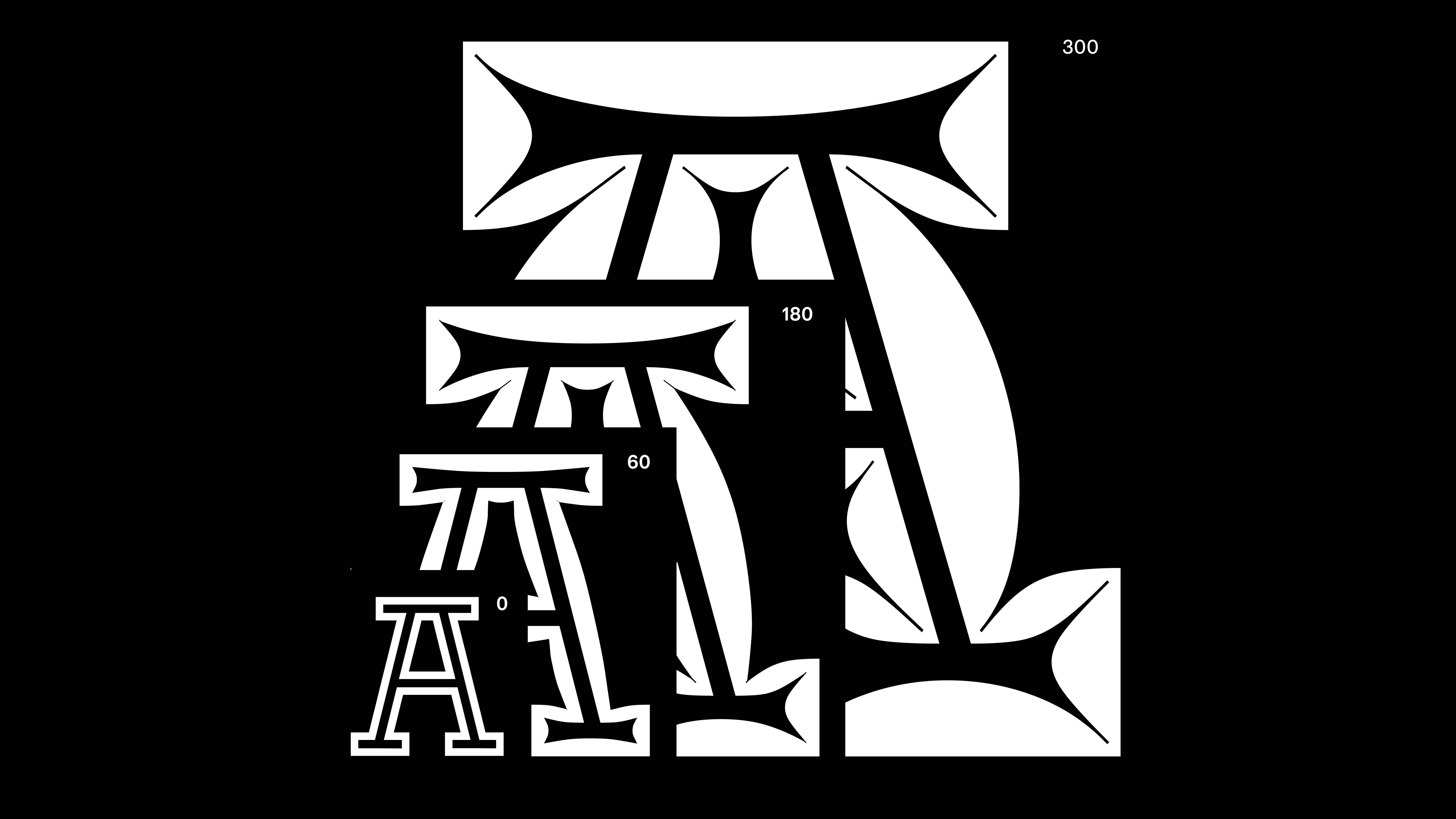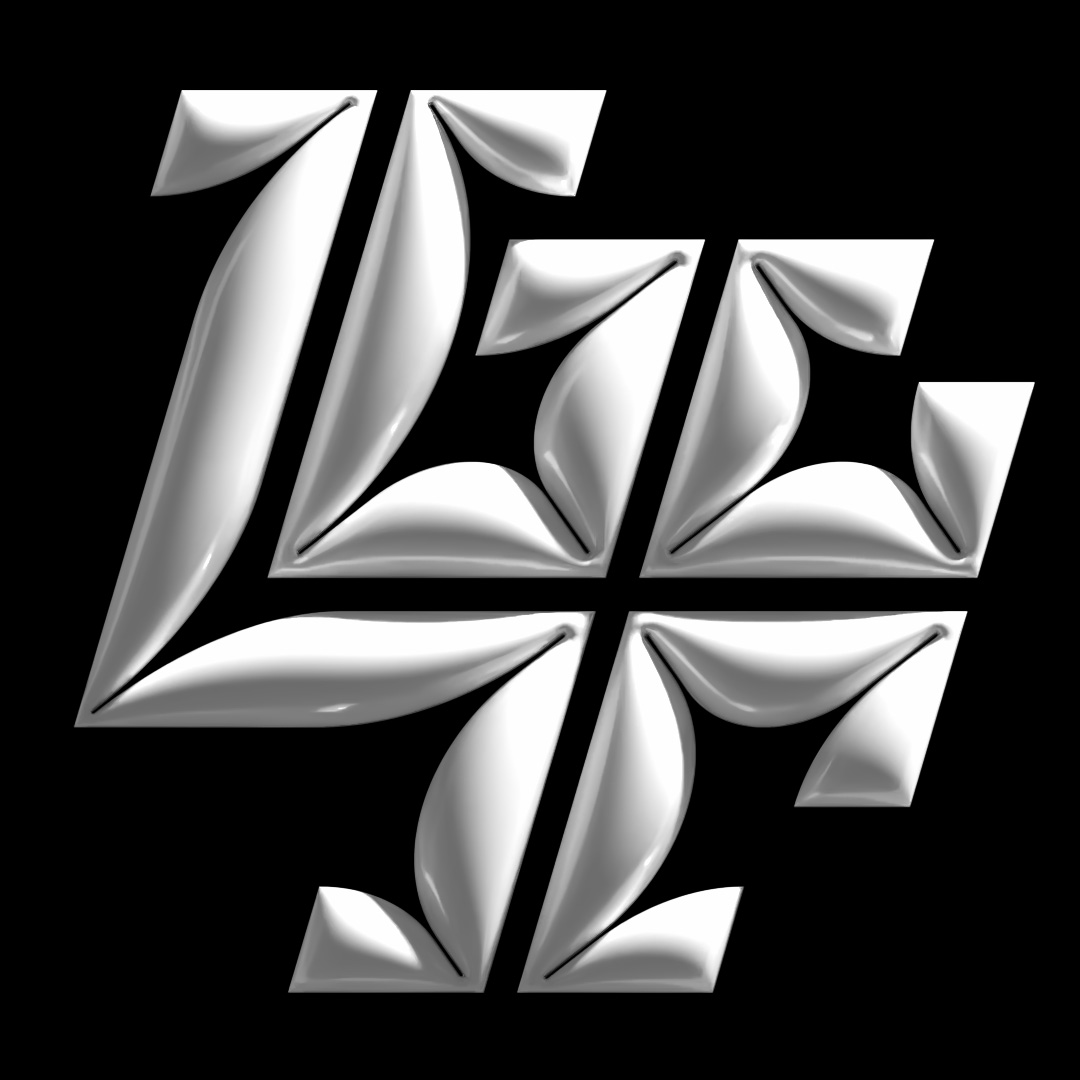
F37 Makadam
A font just begging to be animated, F37 Makadam perfectly encapsulates the style and output of type and motion designer, Mario De Meyer.
F37 Makadam is a caps only inline typeface designed to be loud and vibrant in all of its three styles. Deflated shows off its beautiful underlying structure, useful for casual and graphic headlines. Inflated is where the fun begins, with a complex and striking inline, the letter forms swell as if they were about to burst. Straight is the bold big brother of Deflated, making a strong impact where ever it is used. In the variable format, the fourth style called Punctured is the same as Deflated. This makes looping animations much smoother and more accessible.
Mario De Meyer is a freelance graphic designer based in Ghent/Belgium with a strong focus on typography.
He works on a wide variety of worldwide projects and had the pleasure to work with clients like Adobe, Adidas, Moncler, Bloomberg, Fortune, Inc., IBM, Penguin Books, Panasonic, Speedo, Chrysler, Wired and more.
F37 Makadam
Deflated
Inflated
Straighten
Tell us about the inspiration behind your collaboration with F37®×. If it was an unused concept, what was the potential use case for it.
My inspiration comes from Ink Traps that are used in newsprint, they are usually used for small types. I wanted to explore these by exaggerating them and see how far I can push these.
When starting the process of creating your font, what typographic conventions did you look to break or experiment with? Or were there conventions of functionality you championed?
I wanted to break with the standard conventions but keep their original idea and present them in a fluid dynamic way. There is a 'light' and 'bold' version, but also an inflated version and anything in between.
Now that your typeface has launched, what would be your dream project to use your F37® typeface on?
This font works great for large sizes, so I'm thinking billboards and stuff even bigger than that.
What have you learnt through developing and creating your own typeface(s) with our F37® type designers?
You need to have a solid underlying building system for a cohesive end result.
How would you describe your typeface in three words?
Sharp. Inflated. Contrast.